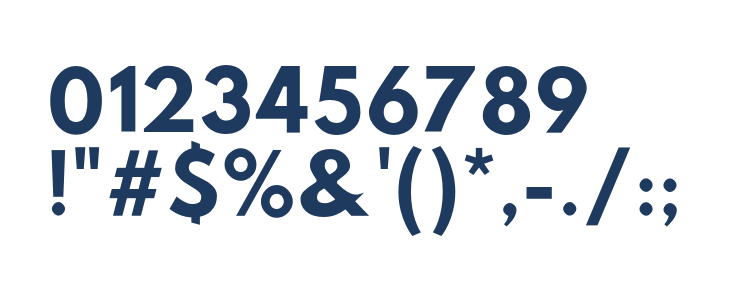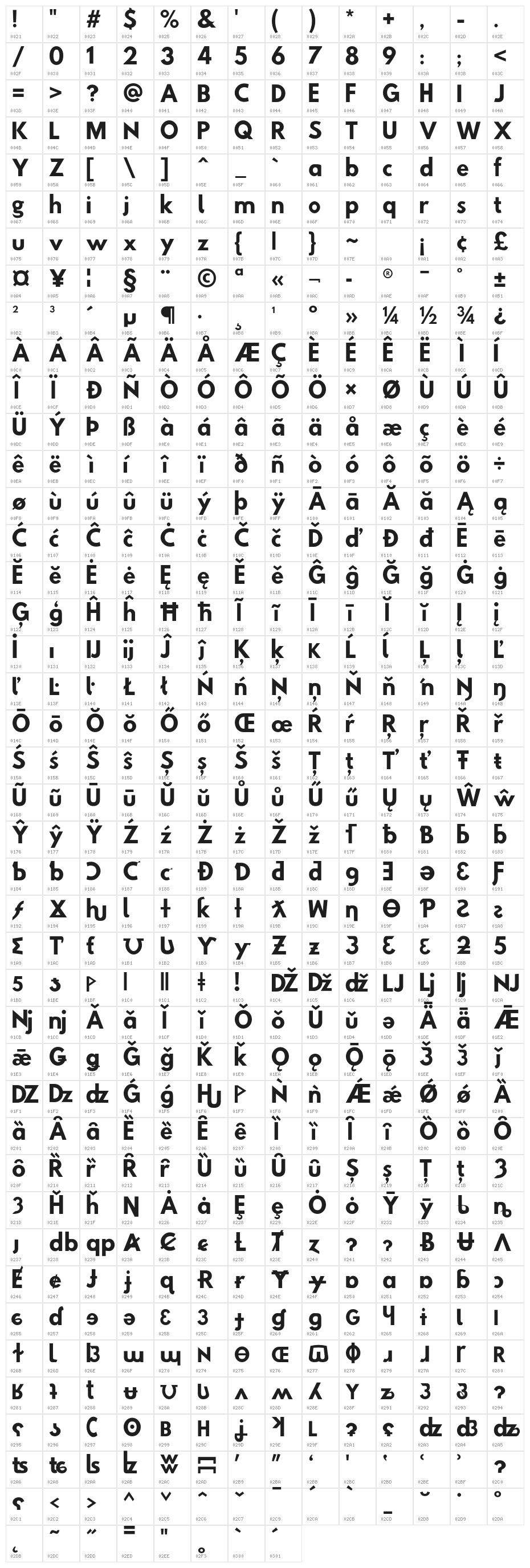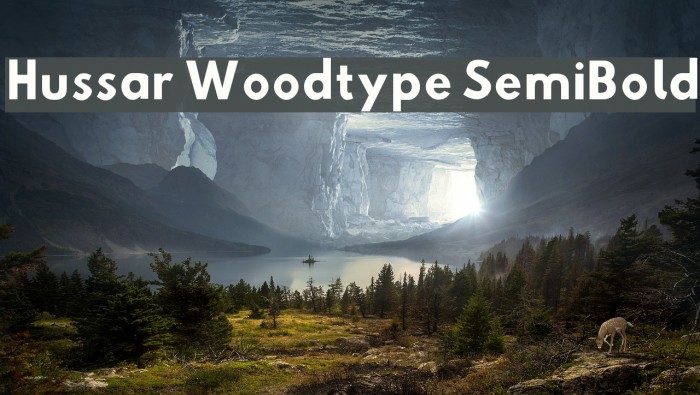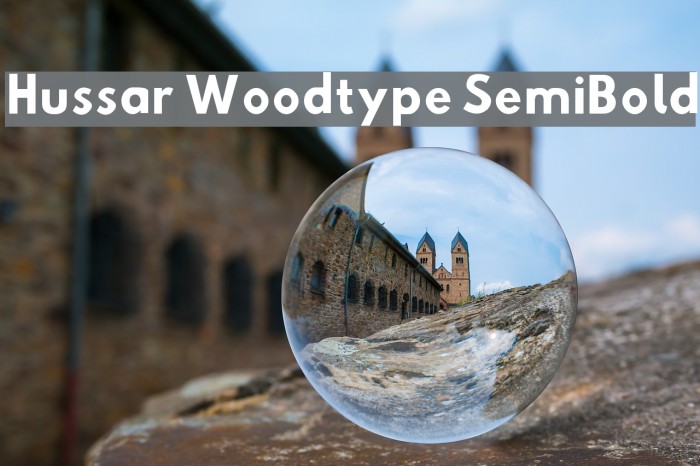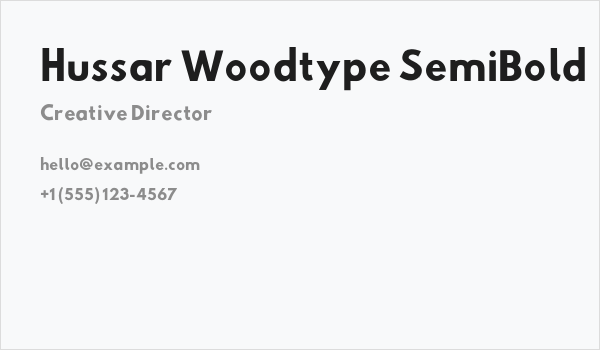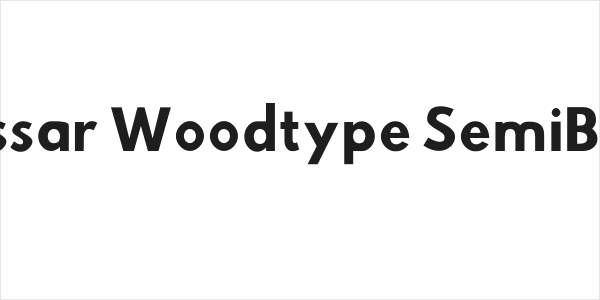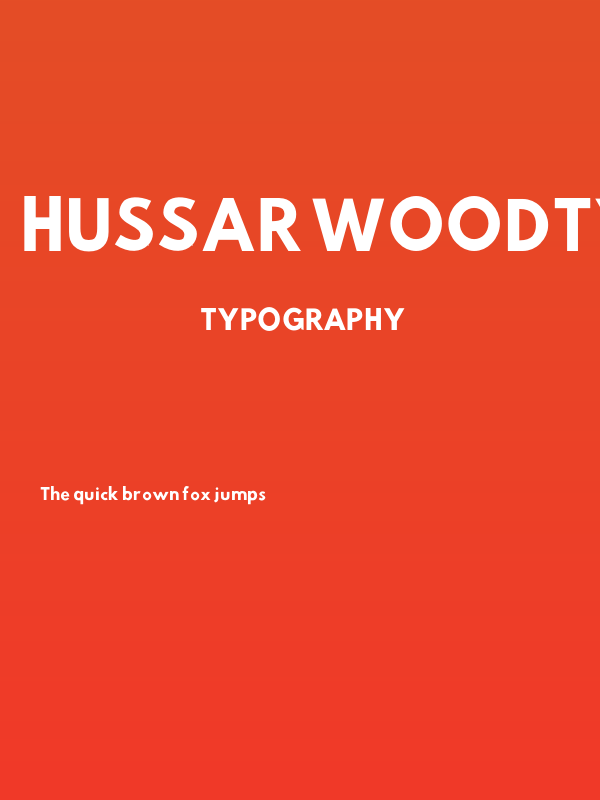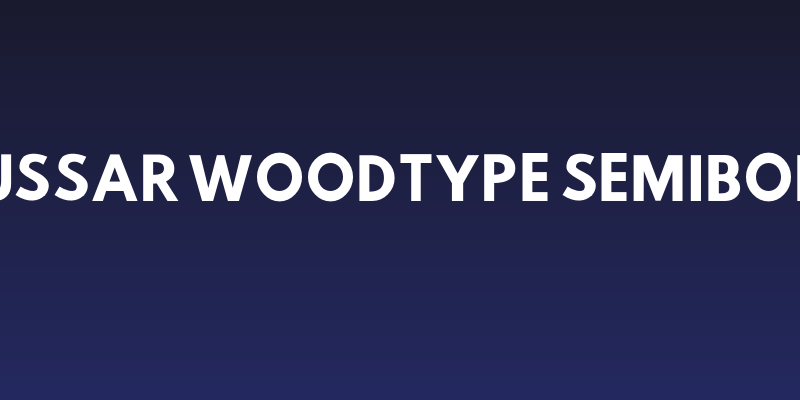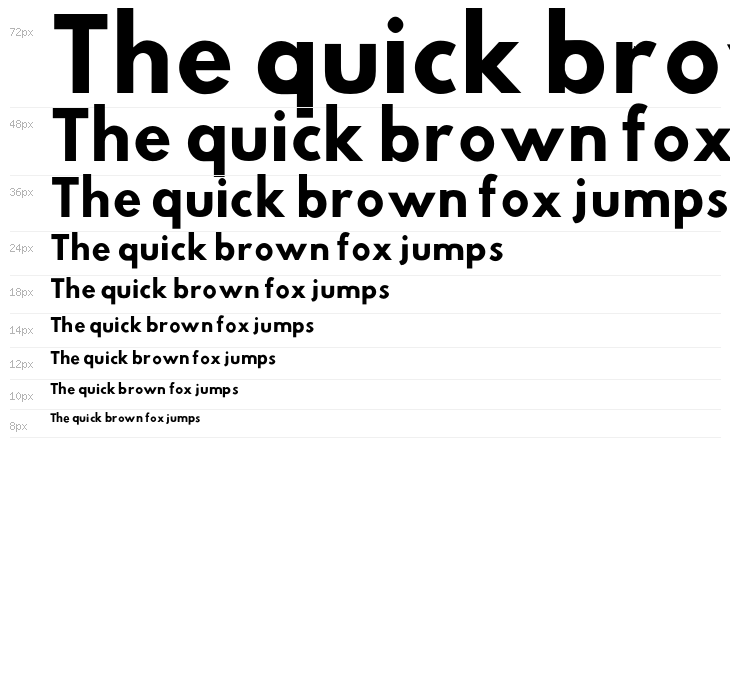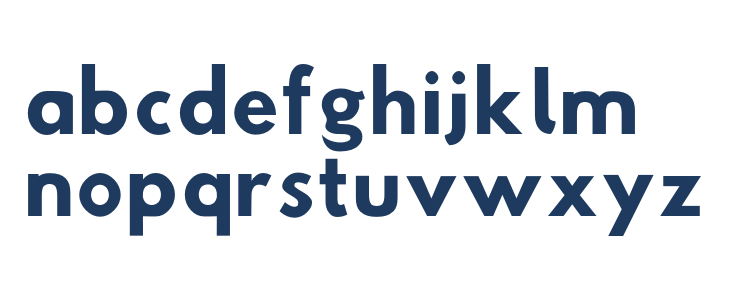
Hussar Woodtype SemiBold Font
Hussar Woodtype SemiBold Description
This font features a bold and robust design with clean, geometric lines and a strong presence. The uppercase letters are uniform and balanced, while the lowercase letters maintain a consistent style that complements the uppercase. The numerals are clear and easy to read, with a modern touch. Special characters are well-defined, adding versatility to the font. The overall appearance is bold and impactful, making it suitable for various design applications.
| Proposed Projects | Ideal for posters, headlines, branding, and advertising materials where a strong visual impact is needed. |